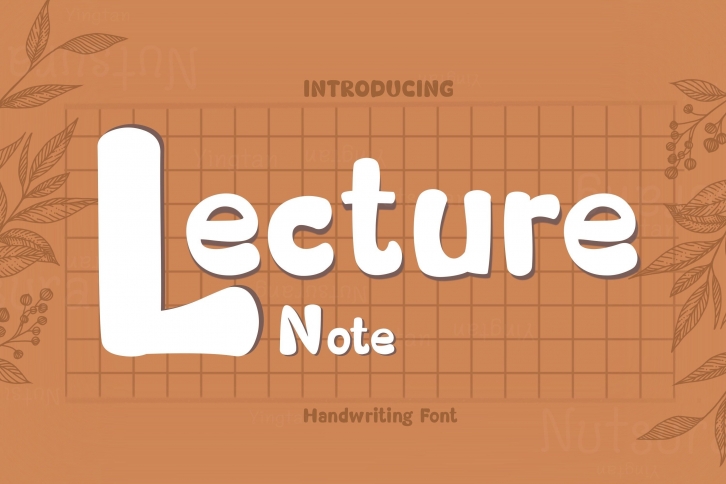
Lecture Note is a cute and friendly handwritten font. Its natural and unique style makes it incredibly fitting to a large pool of designs. The only limit is your imagination!